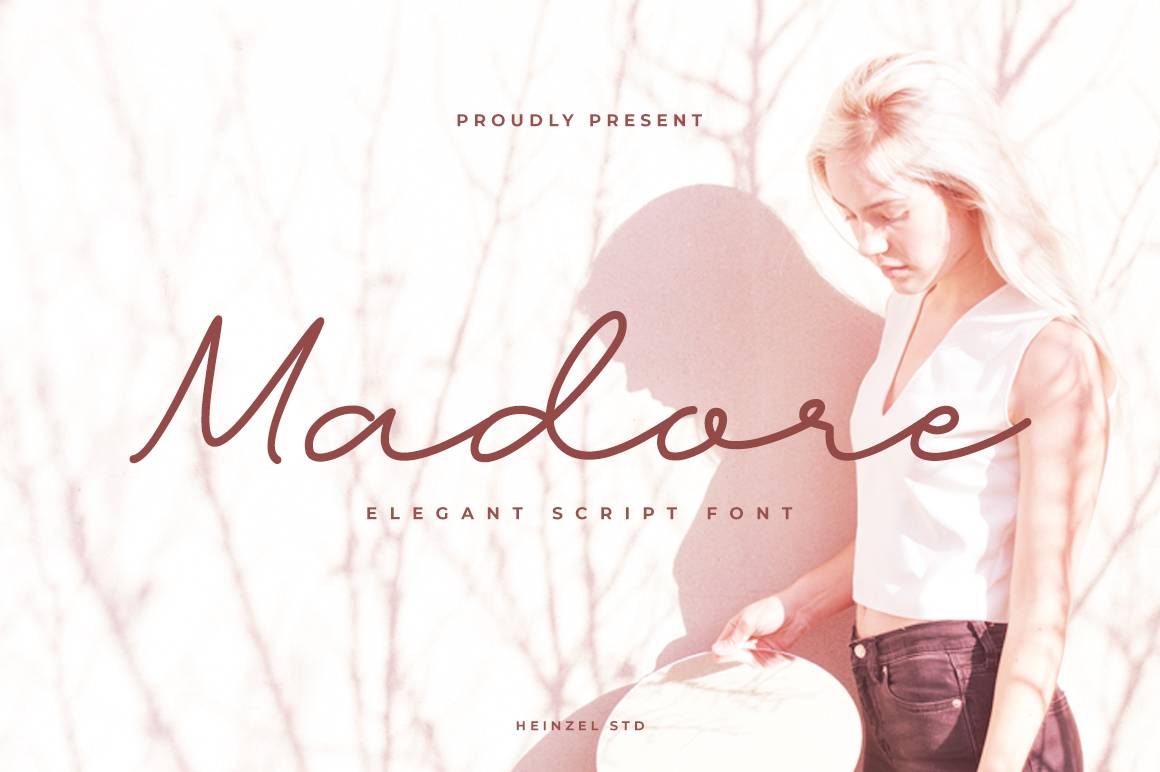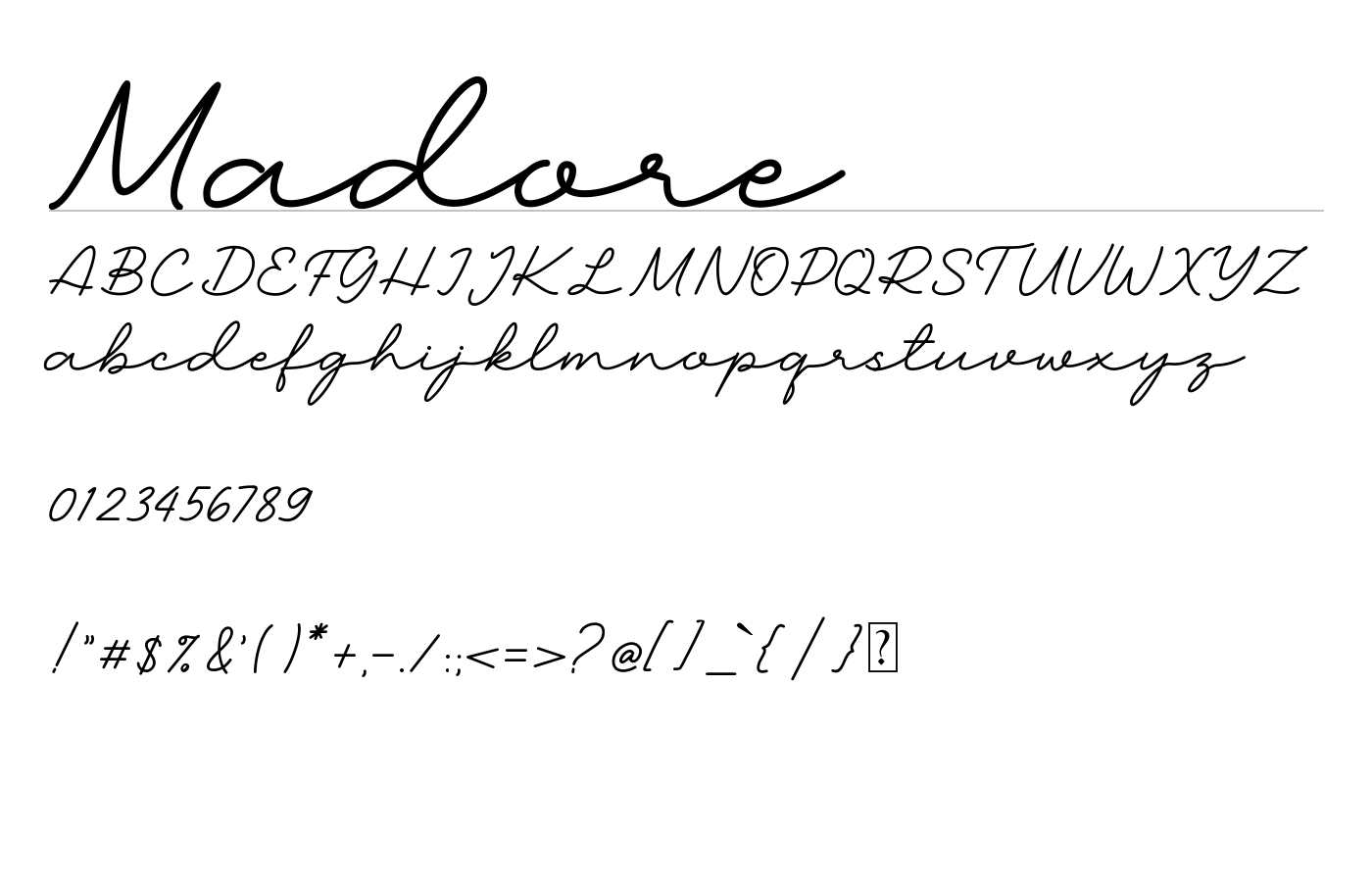
Madore is a delicate, handwritten script font with a light weight and elegant, flowing strokes that feel both personal and refined. Its smooth, connected letterforms and subtle slant give it a graceful, approachable style perfect for invitations, branding, and editorial projects that want to evoke warmth and a touch of sophistication. This font works best in settings where a handwritten, intimate feel enhances the design’s charm and authenticity.
Madore Font
About Madore Font
| Font family | Madore Font |
| Release date | 2020-05-25 |
| Designer | Nofi Sofyan Hadi |